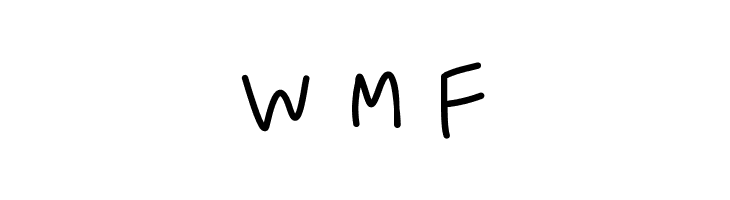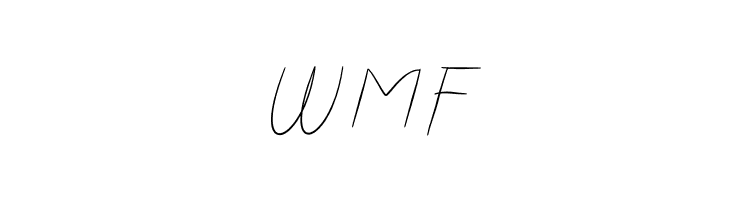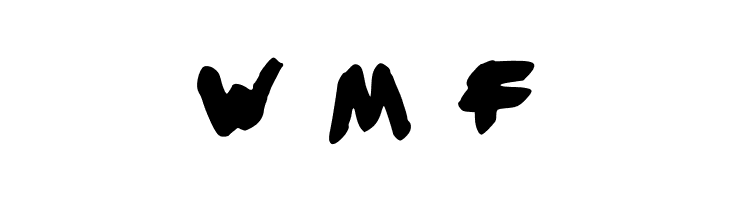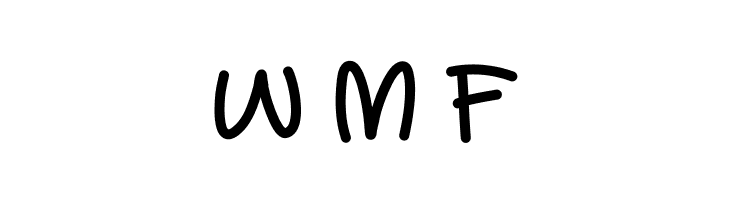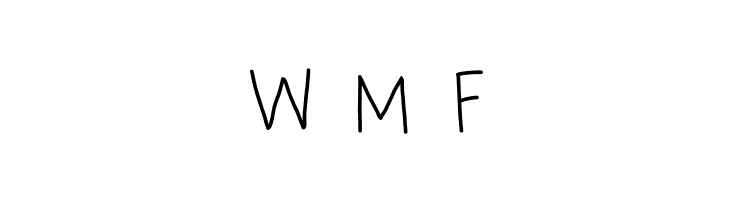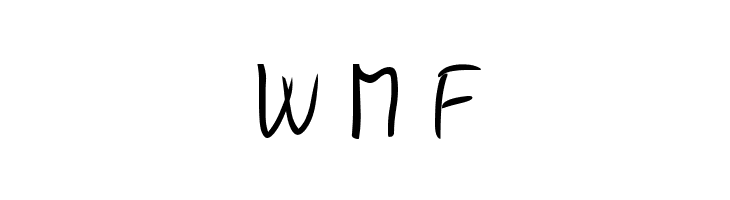
A dynamic, expressive handwritten font with a modern, artistic flair.
A playful and casual handwritten font with rounded, smooth letterforms.
A playful, handwritten font with rounded, consistent strokes and a casual feel.
A fluid, elegant handwritten font with a natural, flowing style.
A playful, casual handwritten font with an organic flow.
A bold, playful handwritten font with thick, rounded strokes.
A playful, rounded font with a whimsical, handwritten style.
A playful, casual handwritten font with smooth, flowing lines and a friendly appearance.
A casual, handwritten font with a playful and informal style.
A playful, casual handwritten font with smooth, flowing lines.